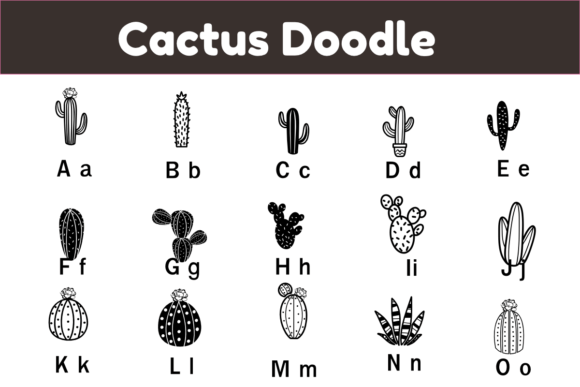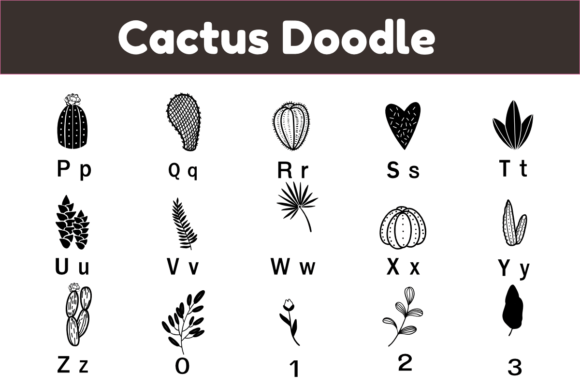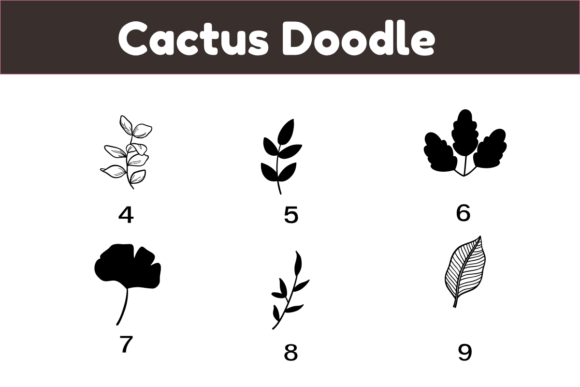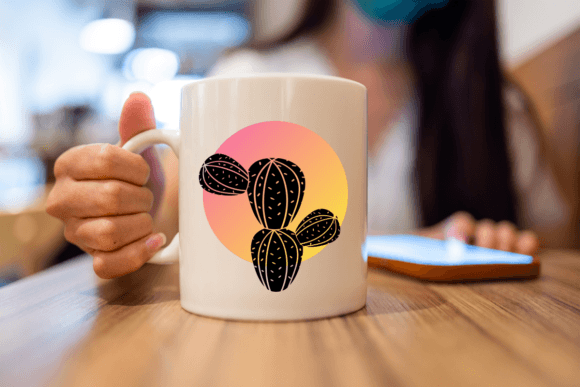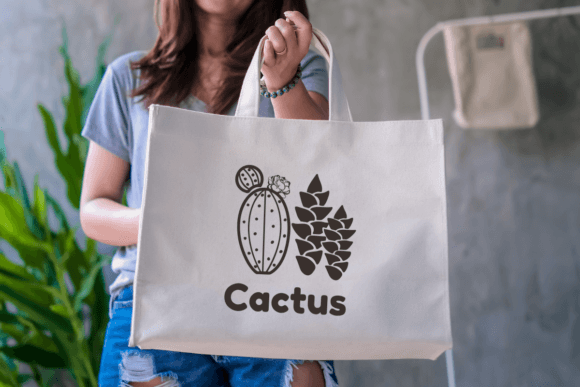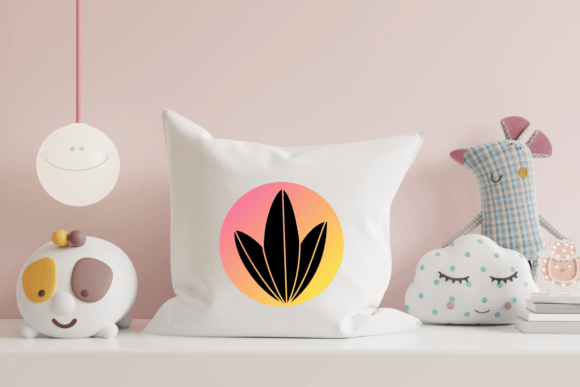
Adding a Touch of Desert Charm to Your Designs
Have you ever stared at a blank page, searching for the perfect font to bring your design to life? I know I have. And sometimes, it’s not just about finding the right font, but about adding a bit of personality to your work. That’s where Cactus Doodle Font comes in – a fun dingbat font that uses cactus images instead of letters and numbers.
This unique font is perfect for designers who want to add a touch of desert charm to their designs. With its cute and unique cactus drawings, Cactus Doodle Font is a valuable addition to any designer’s toolkit. Whether you’re working on a branding project, a greeting card, or a website, this font is sure to bring a smile to your client’s face.
Cactus Doodle Font Key Features
- Unique Characteristics: Cactus Doodle Font features a playful, hand-drawn design with intricate details and bold lines, perfect for creating eye-catching graphics and logos.
Cactus Doodle Font Review
Overall, I was quite impressed with the Cactus Doodle Font. It has a fun and quirky vibe that could add a lot of character to a design. ✨ I love how it combines cactus-inspired illustrations with a bold, playful font. It’s perfect for creating eye-catching titles, headings, and even logos.
- The font is highly customizable, allowing you to adjust the color, size, and spacing to fit your design needs.
- The illustrations are detailed and well-designed, adding a lot of visual interest to your text.
- The font is highly legible, even at smaller sizes, making it suitable for a wide range of design applications.
However, there are a few limitations to keep in mind. ⚠️ The font can be quite busy, so it’s best used in moderation. It may not be the best choice for large blocks of text or formal designs. Additionally, the font is not as versatile as some other options, so it may not be suitable for every design project.
Overall, I would recommend the Cactus Doodle Font to designers looking for a fun and unique way to add some personality to their designs. Just be mindful of its limitations and use it thoughtfully.